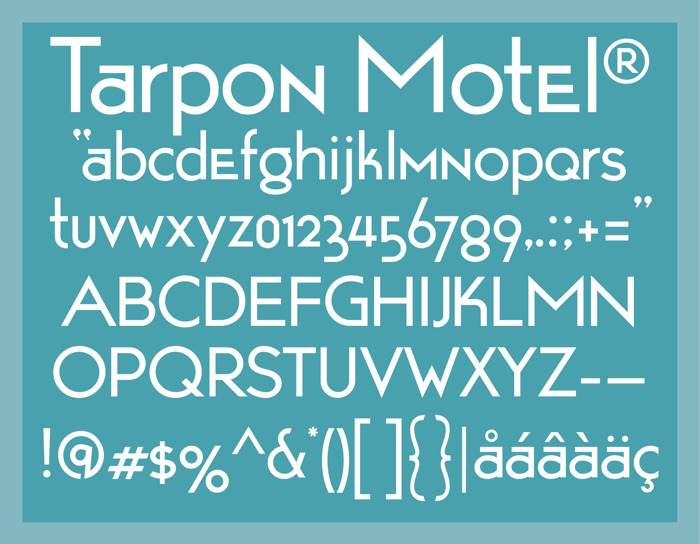
Tarpon Motel Font
Tarpon Motel is a fresh update to a design I created in 1991 called Opticon, and which enjoyed a great deal of popularity as a shareware font, even appearing as the logo and credit type for the 1997 Golden Globe Awards. I have tried to start over and make it more consistent many times, but only since getting FontForge to work did I find the time and inspiration to redesign the face. 27 years later, it's become Tarpon Motel.